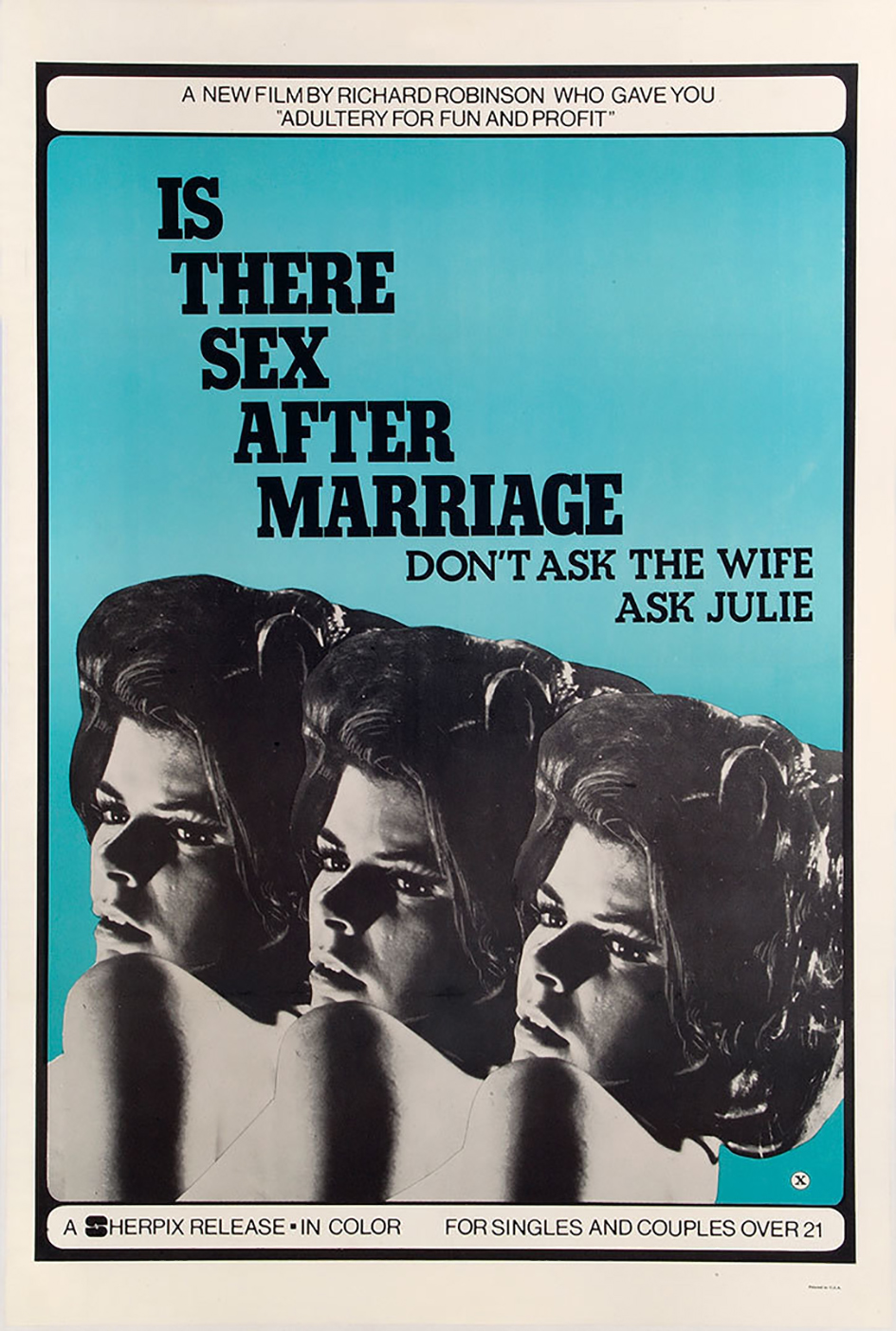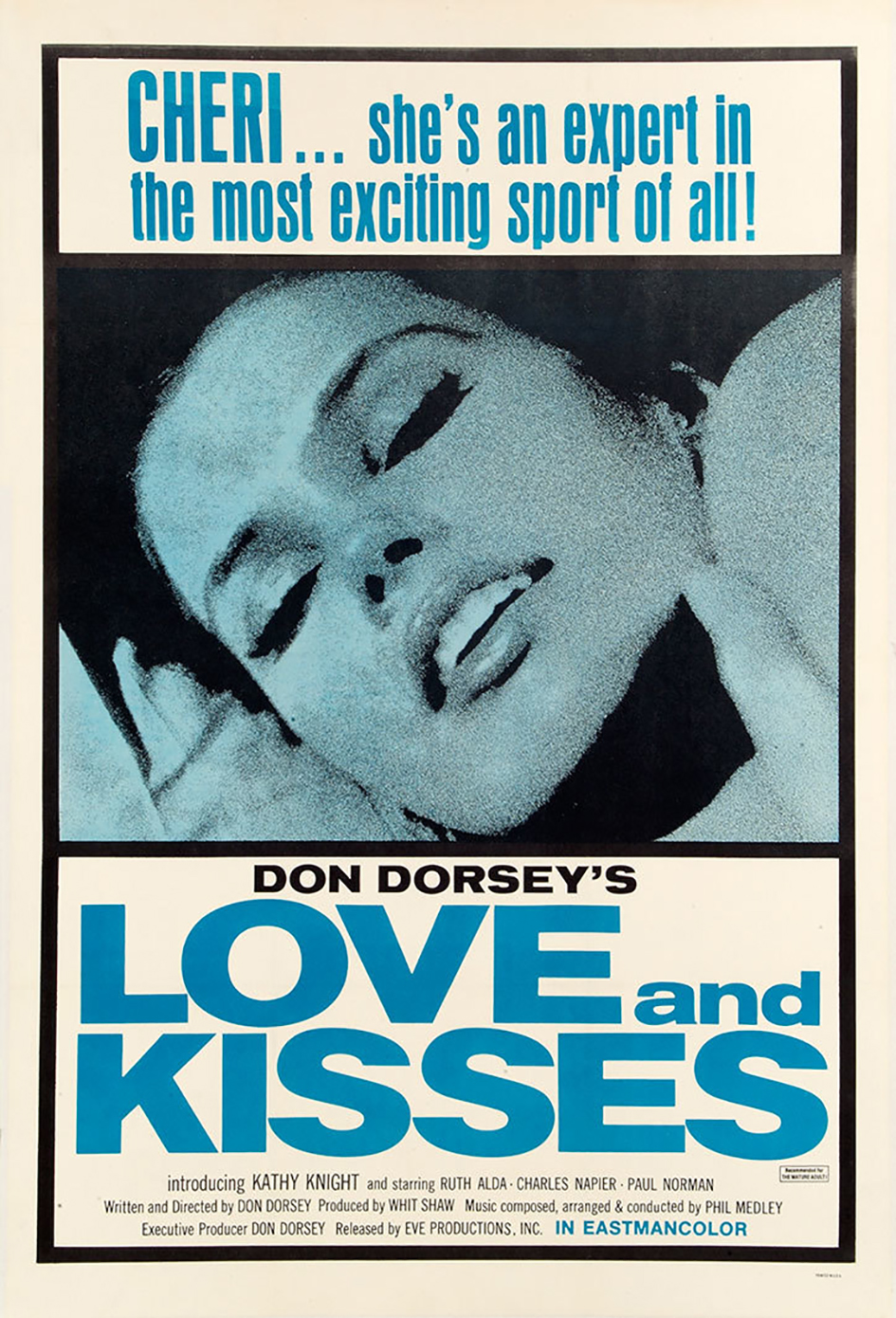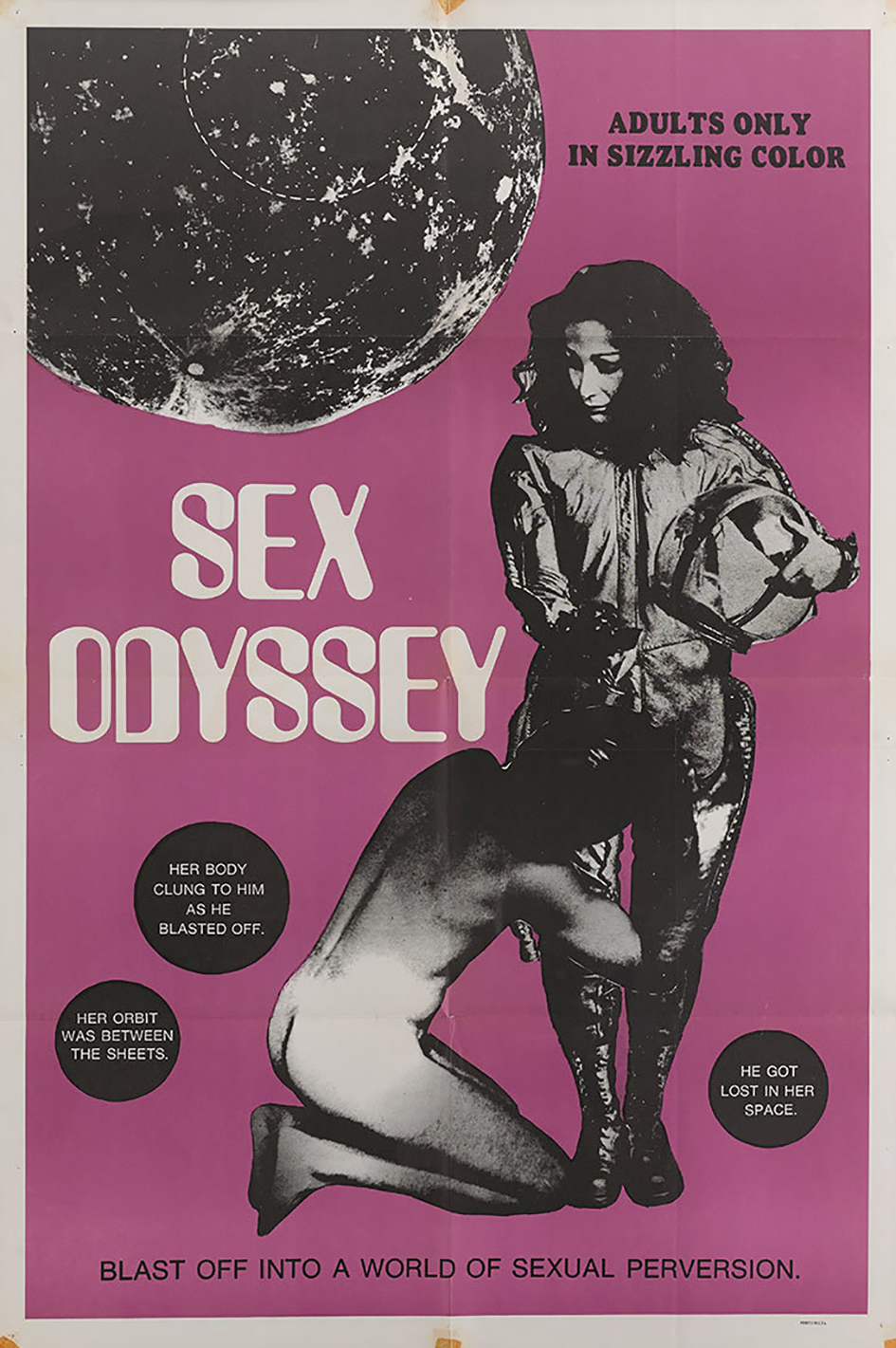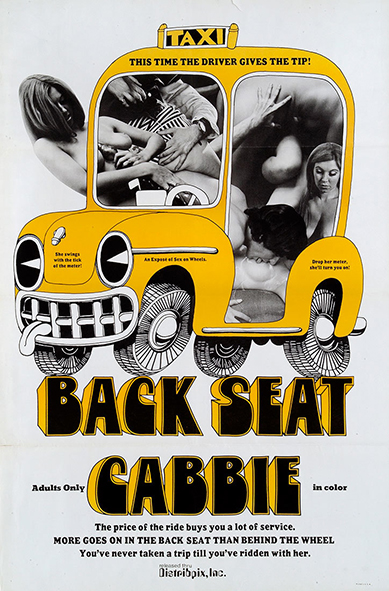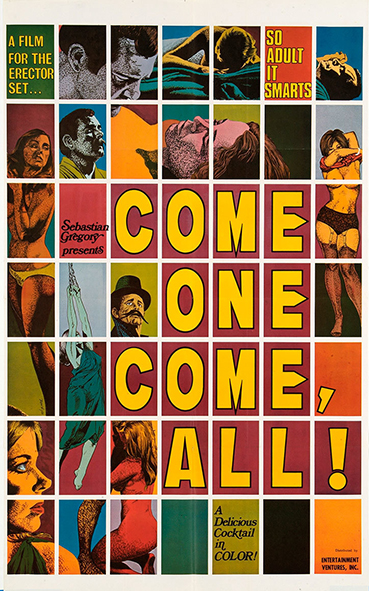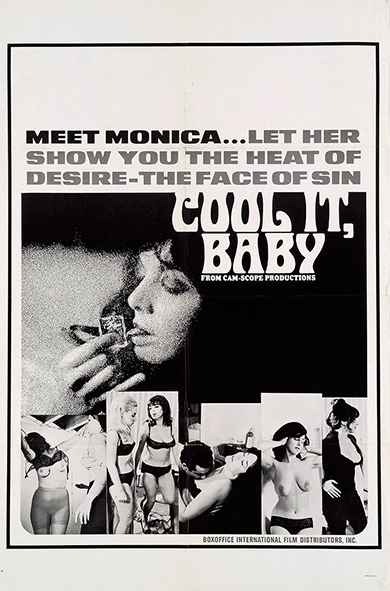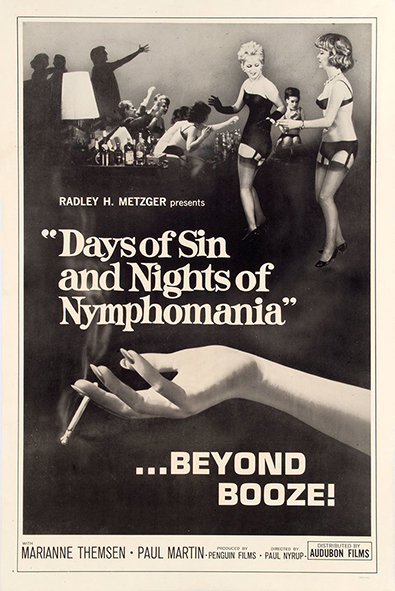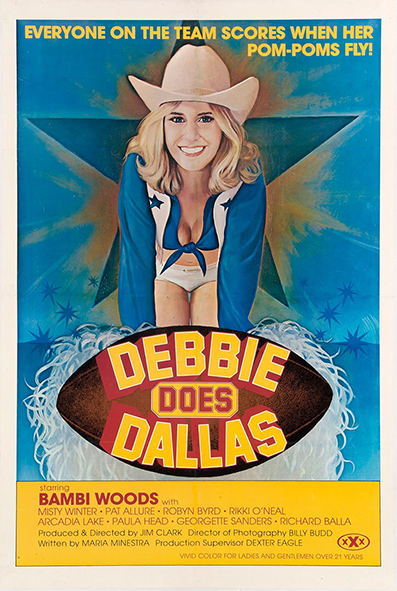
Celebrate the golden age of porn with 350 orgasmic X-Rated posters
For connoisseurs of the film poster, porn cinema offers an alternative history of the 1960s and 1970s” writes Peter Doggett in his introduction to X-Rated Adult Movie Posters of the 60s and 70s, a publication that is ready to explore the sexy side of imagery and lettering in a stunning volume released this summer by Reel Art Press.
“Few people ever turned to exploitation movies in search of subtlety: the task of the X-rated graphic artist was to arouse urgent desires that could only be satisfied by a seat in the stalls. Their designs required no decoding.”
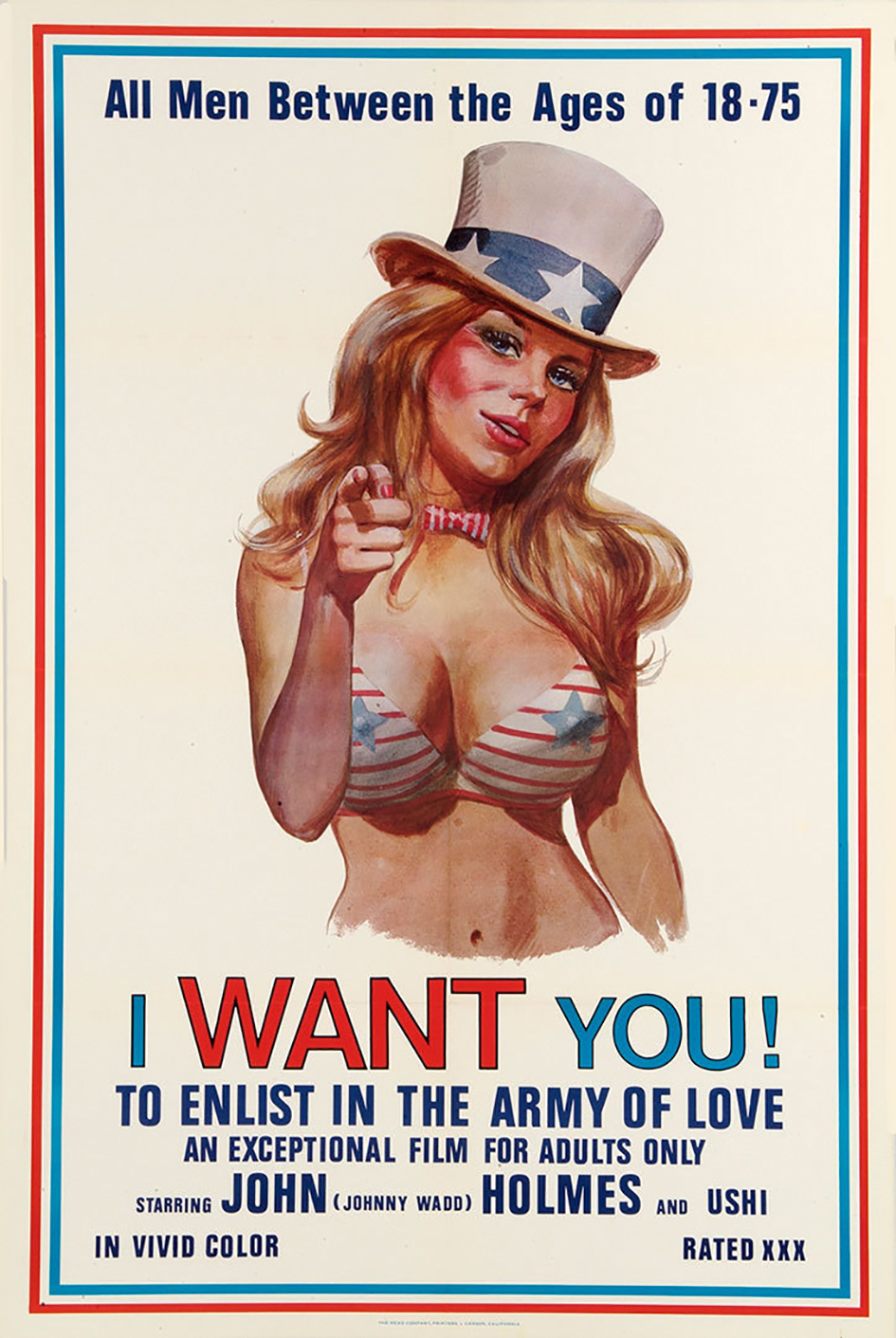
More often than not the posters were crudely printed “cut and paste” collages featuring the over-endowed regulars of the B-movie circuit. Scantily-clad forms abound suspended above screaming taglines and provocative titles, like the not-so classic Flesh Gordon, Kiss Me Mate, Hot Lunch and Oh! so many more.
Very occasionally, this formula was broken: when the soft-core masterpiece Emmanuelle was released in 1974, one of the most respected designers in the business – the original Mad Man Steve Frankfurt – was even persuaded to work on the poster campaign. Of course, such sophistication was an exception. As Peter writes, “Variations on the same glamour-mag approach – women, breasts, buttocks – were routine, with pictures and typography that often looked as if it had been thrown at the poster rather than artfully arranged.”
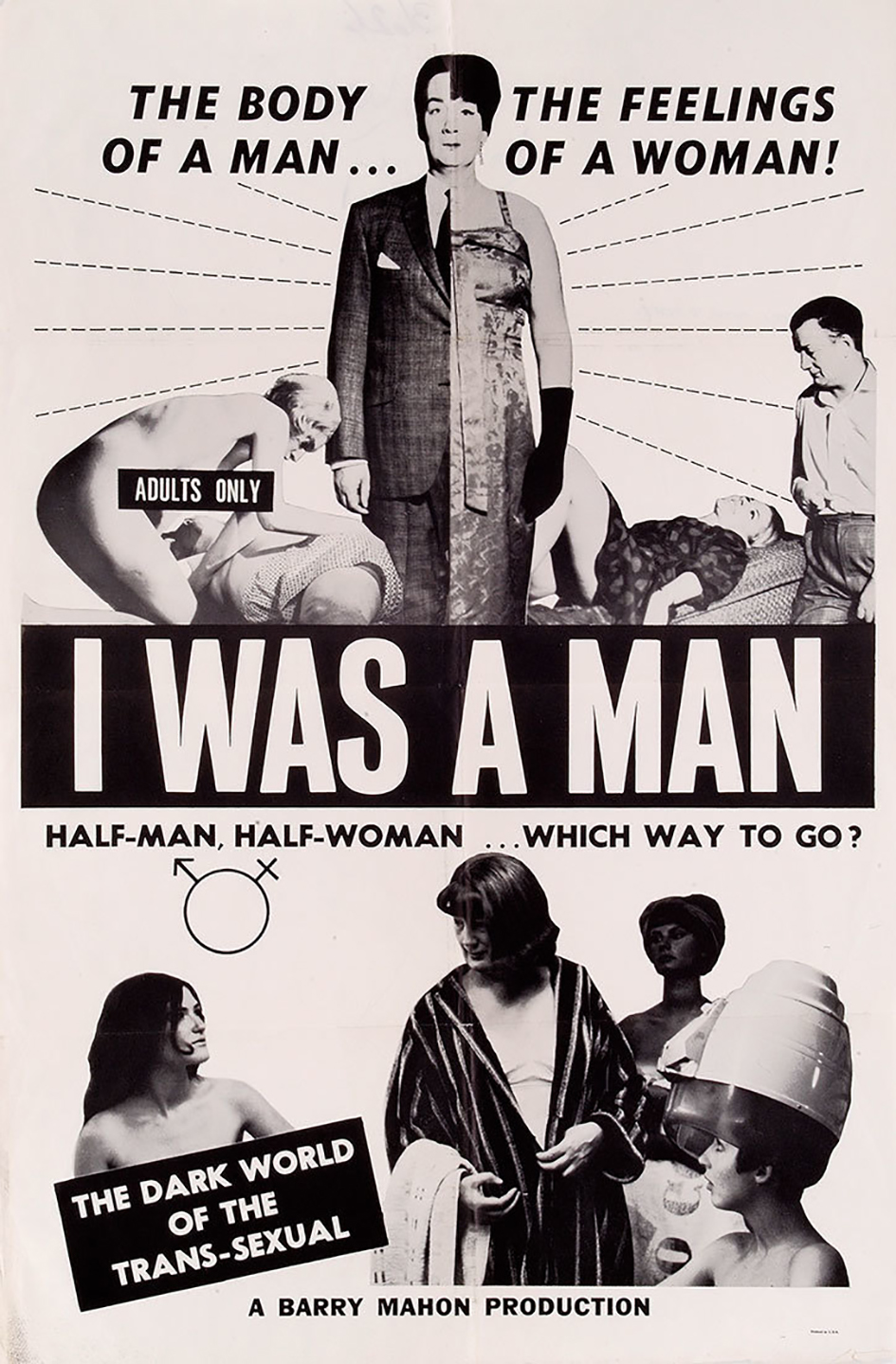
Gloriously retro, this wonderfully curated collection is a new and expanded celebration of Nourmand and Marsh’s original cult bestseller, X-Rated Adult Movie Posters of the 60s and 70s, released over a decade ago.
Featuring the crème de la crème of X posters, X-Rated Adult Movie Posters of the 60s and 70s features over 350 orgasmic posters, pressbooks and stills from the Golden Age of the X-rated movie – an inspiration for graphic designers and creatives alike, an invaluable time-capsule for historians, and an irresistible page-turner for everyone else.
The tome is destined to become a cult classic and is an absolute must-have. After all sex does sell since forever.